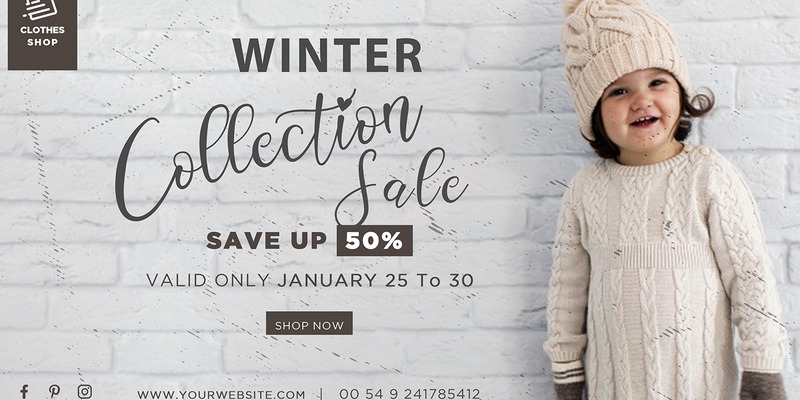
Bethiany - Cursive Font
Bethiany is a elegant and a natural script stylish lovely font script.
Bethiany Modern Calligraphy is perfect for branding projects, logo, wedding designs, social media posts, advertisements, product packaging, product designs, label, photography, watermark, invitation, stationery and any projects that need handwriting taste.
· Ligature
· Fonts include multilingual support for; ä ö ü Ä Ö Ü ß ¿ ¡